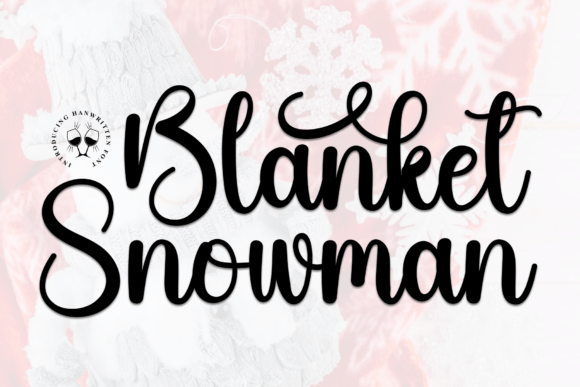
The Perfect Winter Wonderland Font
Do you remember the excitement of unwrapping your new markers as a kid, eager to unleash your creativity and bring your imagination to life? For many of us, those carefree days of coloring and drawing are a cherished memory that never fades. And now, designers and creatives can relive that magic with the Blanket Snowman Font – a playful script font that’s as bold as it is charming.
With its casual, sporty vibe, the Blanket Snowman Font is the perfect way to add a fun, energetic feel to your text. Whether you’re designing a festive holiday card or a summer sports brochure, this font is sure to make your message stand out. Its value lies in its versatility and the ease with which it can be used to convey a sense of playfulness and adventure.
Blanket Snowman Font Key Features
- Unique Characteristics: Hand-drawn, whimsical design with a warm, cozy feel; perfect for winter-themed projects and holiday graphics
- Character Set: Includes uppercase and lowercase letters, numbers, punctuation, and special characters
- Font Weight: Available in Regular and Bold weights
Blanket Snowman Font Review
Overall, I’m quite impressed with the Blanket Snowman Font. It’s a unique and playful addition to any winter-themed design project. Here are a few things that work well:
- ✨ The font’s irregularities add to its charm and give it a handmade feel.
- ✨ The character set is extensive and includes a range of punctuation marks and symbols.
- ✨ The font is highly customizable, allowing you to adjust the size, color, and style to suit your needs.
However, there are a few limitations to be aware of:
- ⚠️ The font may not be suitable for formal or professional designs, as its playful nature can come across as unprofessional.
- ⚠️ Some characters may not display correctly in certain software or operating systems.
- ⚠️ The font’s irregularities can make it difficult to read at small sizes or in certain contexts.
Overall, I’d recommend the Blanket Snowman Font for casual, creative projects or designs that require a unique and whimsical touch. While it may not be the best choice for formal or professional projects, it’s a great option for those looking to add some personality to their designs.
Use the Blanket Snowman Font for winter-themed designs, such as holiday cards, invitations, and social media graphics.
Combine the font with snowflake or snowman graphics for a cohesive winter look.
Use the Blanket Snowman Font for:
Winter holiday designs
Snow-themed social media graphics
Children’s party invitations
Alternatives to Blanket Snowman Font
Winter Wonderland Font
The Winter Wonderland Font is a modern, elegant script font that evokes the magic of snow-covered landscapes. It’s perfect for designing winter-themed products, such as holiday cards, invitations, and advertisements. Compared to Blanket Snowman Font, Winter Wonderland Font is more sophisticated and less playful, making it suitable for a wider range of design projects.
Frosty’s Script Font
Frosty’s Script Font is a whimsical, handwritten font that captures the playful spirit of snowmen and winter activities. It’s ideal for creating a fun, casual atmosphere in designs such as children’s books, party invitations, and social media graphics. While Frosty’s Script Font shares a similar playful vibe with Blanket Snowman Font, it has a more rustic and handwritten feel.
Alpine Font
The Alpine Font is a clean, sans-serif font that conveys a sense of crisp, mountain air. It’s perfect for designing outdoor-themed products, such as ski resort advertisements, hiking trail maps, and mountain-inspired artwork. Compared to Blanket Snowman Font, Alpine Font is more modern and minimalist, making it suitable for a variety of design projects that require a clean, outdoor feel.
Glacier Font
The Glacier Font is a unique, serif font that evokes the smooth, icy texture of glaciers. It’s ideal for designing premium, high-end products, such as luxury winter clothing, fine art prints, and exclusive invitations. While Glacier Font shares a similar winter theme with Blanket Snowman Font, it has a more sophisticated and luxurious feel, making it suitable for high-end design projects.